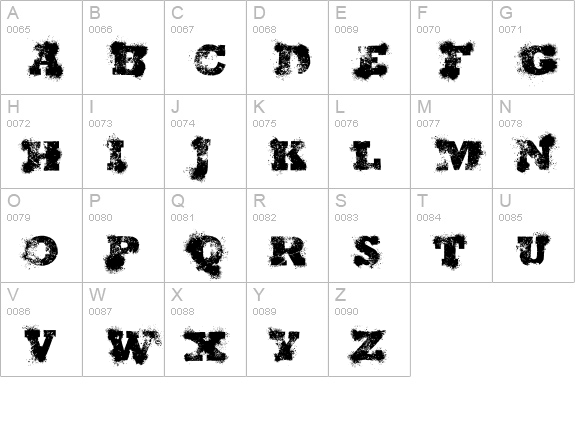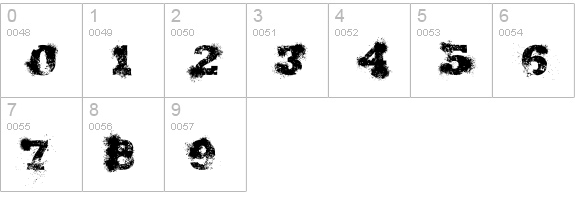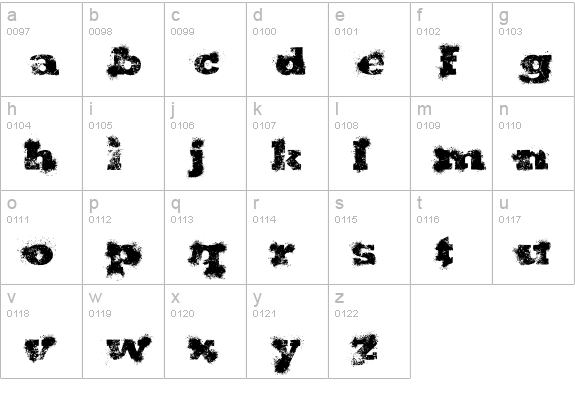
Shotgun Wedding Font Details
Introducing Shotgun Wedding, a bold and captivating font that adds a touch of vintage charm to any design project. This font effortlessly combines the ruggedness of a shotgun with the elegance of a wedding, creating a unique and eye-catching typeface that is perfect for a wide range of creative endeavors. Shotgun Wedding features strong and bold letterforms that command attention and make a lasting impression. Its distinctive curves and sharp edges give it a sense of edginess and character, making it ideal for creating logos, headlines, posters, and more. One of the best things about Shotgun Wedding is that it is completely free. Yes, you read that right! This stunning font is freely available to download at FontsMarket.com, ensuring that you can bring a touch of vintage charm to your designs without breaking the bank. Whether you're working on a wedding invitation, a branding project, or a vintage-inspired poster, Shotgun Wedding is the perfect choice. Its versatility and unique aesthetic make it a standout font that will elevate your designs to new heights. So why wait? Download Shotgun Wedding today and let its bold and captivating style breathe new life into your creative projects. With its free availability at FontsMarket.com, there's no reason not to add this stunning font to your collection. Get ready to make a statement and leave a lasting impression with Shotgun Wedding.